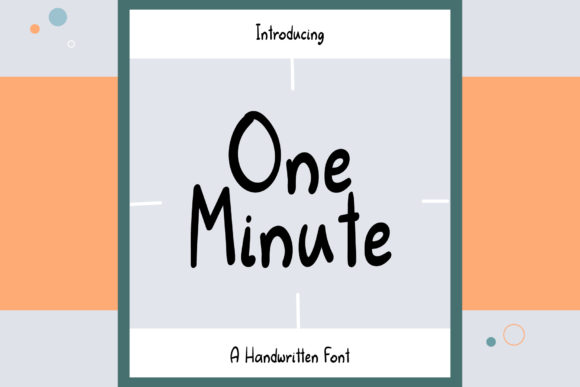
In this digital age, where written words hold immense power to captivate hearts and minds, the choice of font becomes paramount. Introducing One Minute Font, a digital masterpiece meticulously crafted to elevate your creations beyond the ordinary.
One Minute Font is a stunning script typeface, its graceful strokes dancing across the page with an air of effortless elegance. Each letterform is a testament to the artistry of its creator, Wanida Toffy, renowned for her ability to imbue fonts with genuine emotion.
Step into a world where words come alive, effortlessly captivating your audience with the charm of One Minute Font. Whether you seek to weave a captivating tale within the pages of an eBook or craft marketing materials that resonate deeply with your target market, this font will be your trusty companion.
Experience the joy of effortlessly conveying your message with a font that seamlessly complements your vision. One Minute Font is a versatile chameleon, adapting flawlessly to a myriad of design concepts. Its natural and unique style lends an air of authenticity to any project, allowing your creativity to soar without limits.
With One Minute Font in your digital arsenal, the possibilities are endless. Dive into the world of captivating storytelling, where words dance with newfound grace and eloquence.